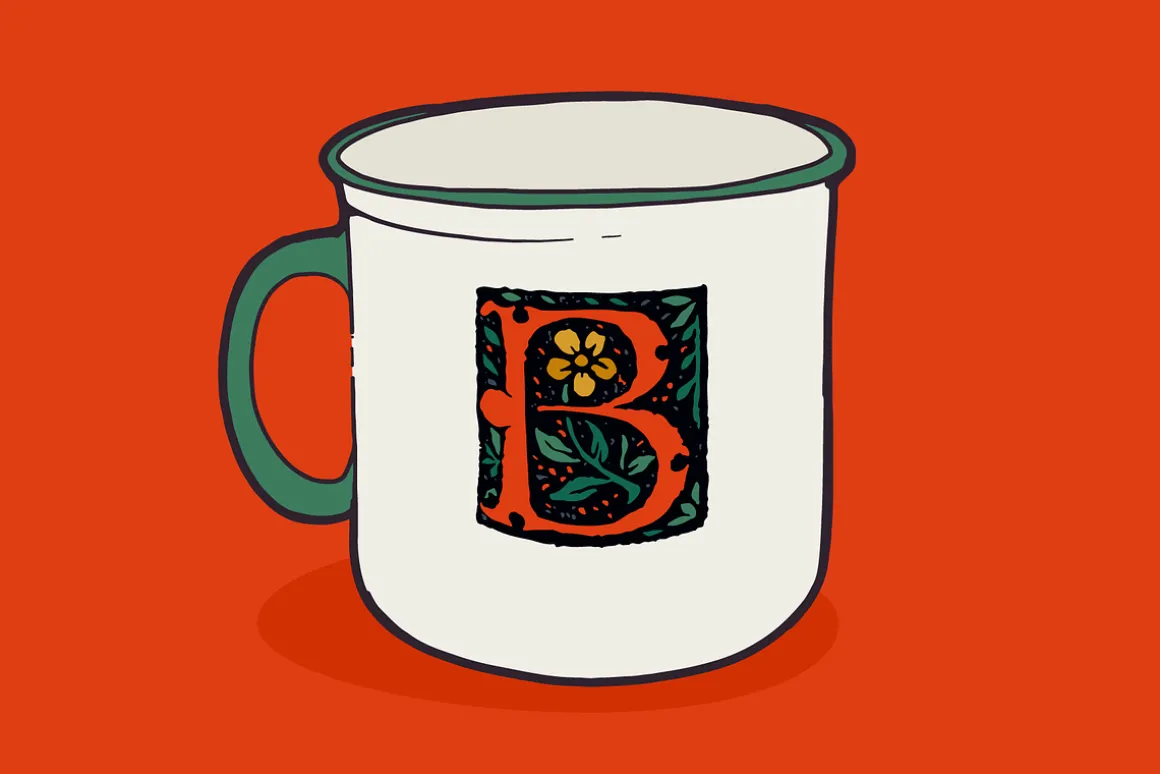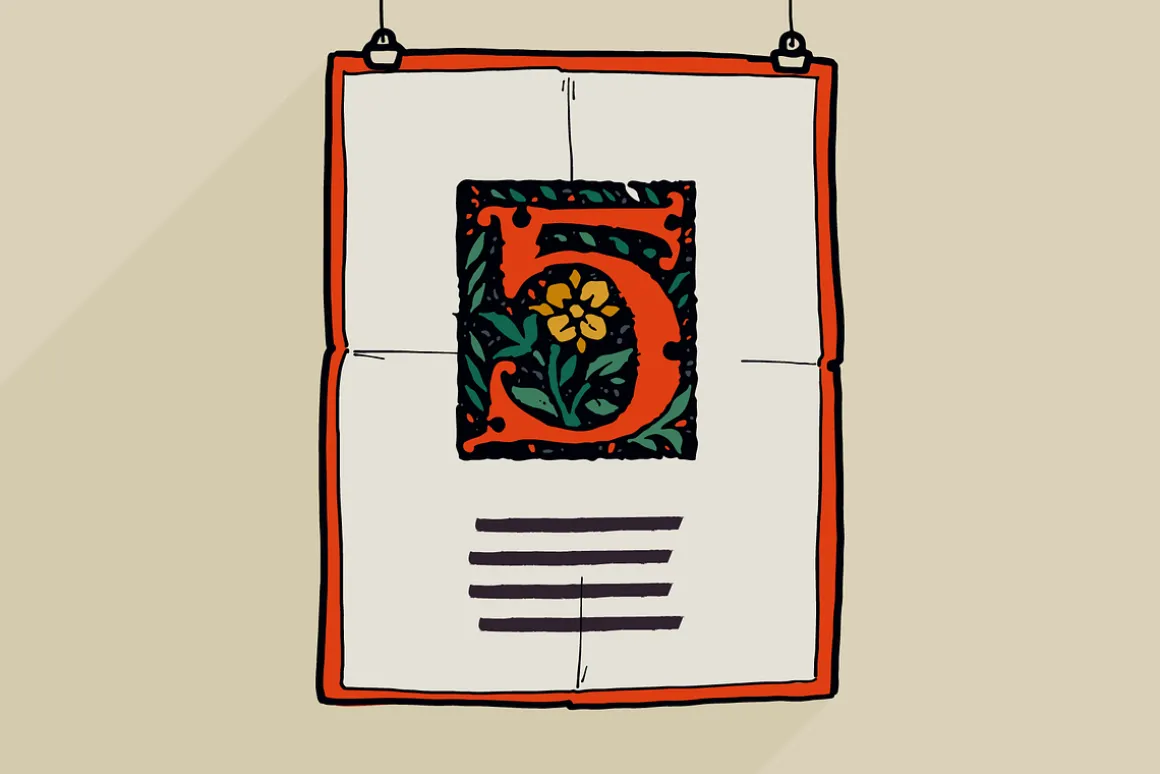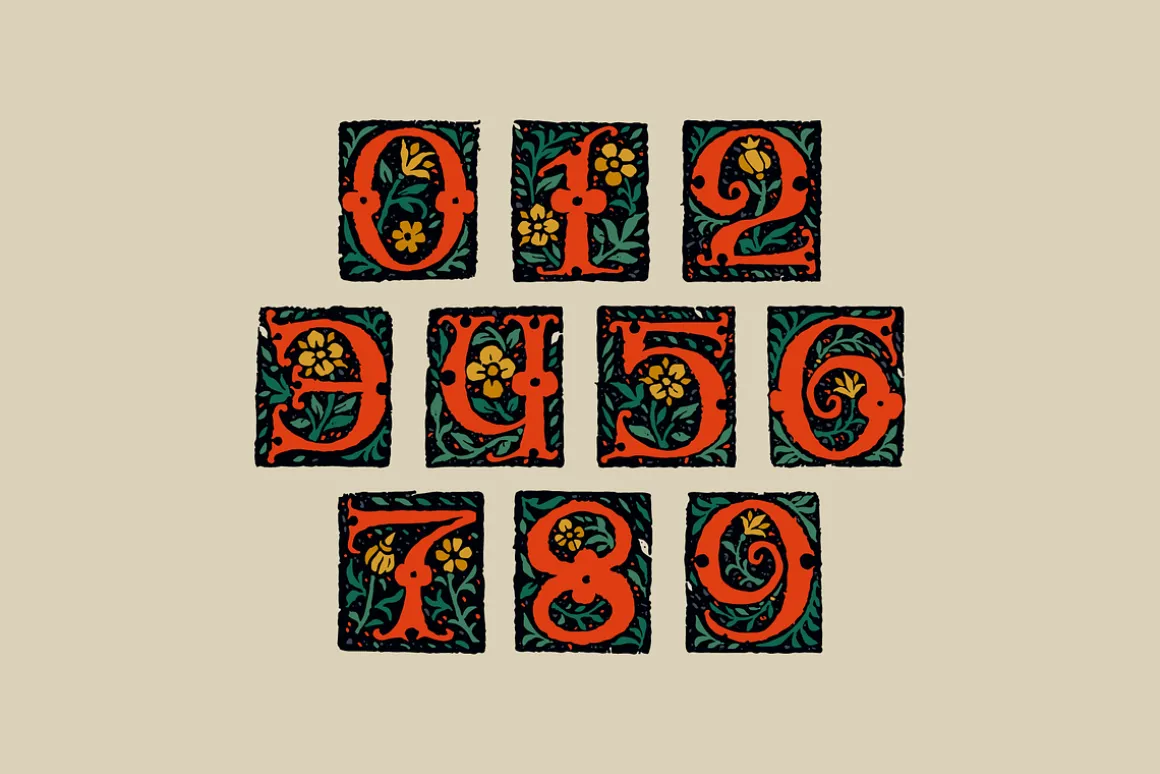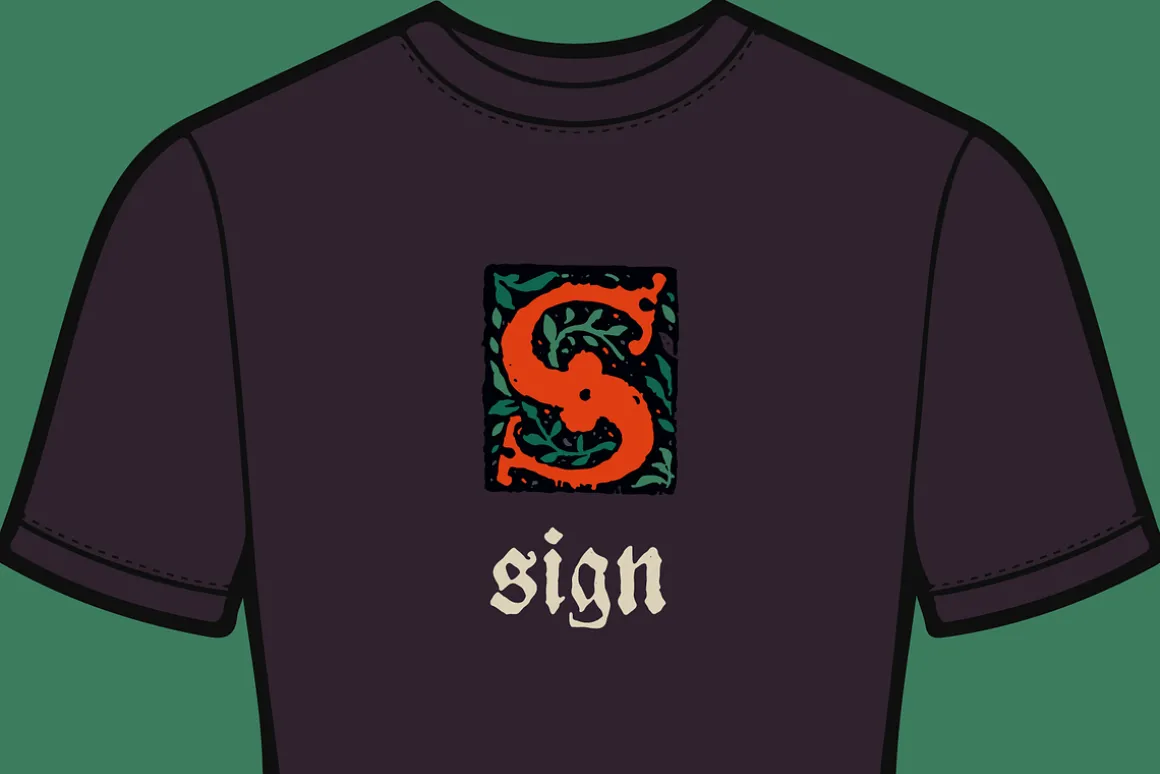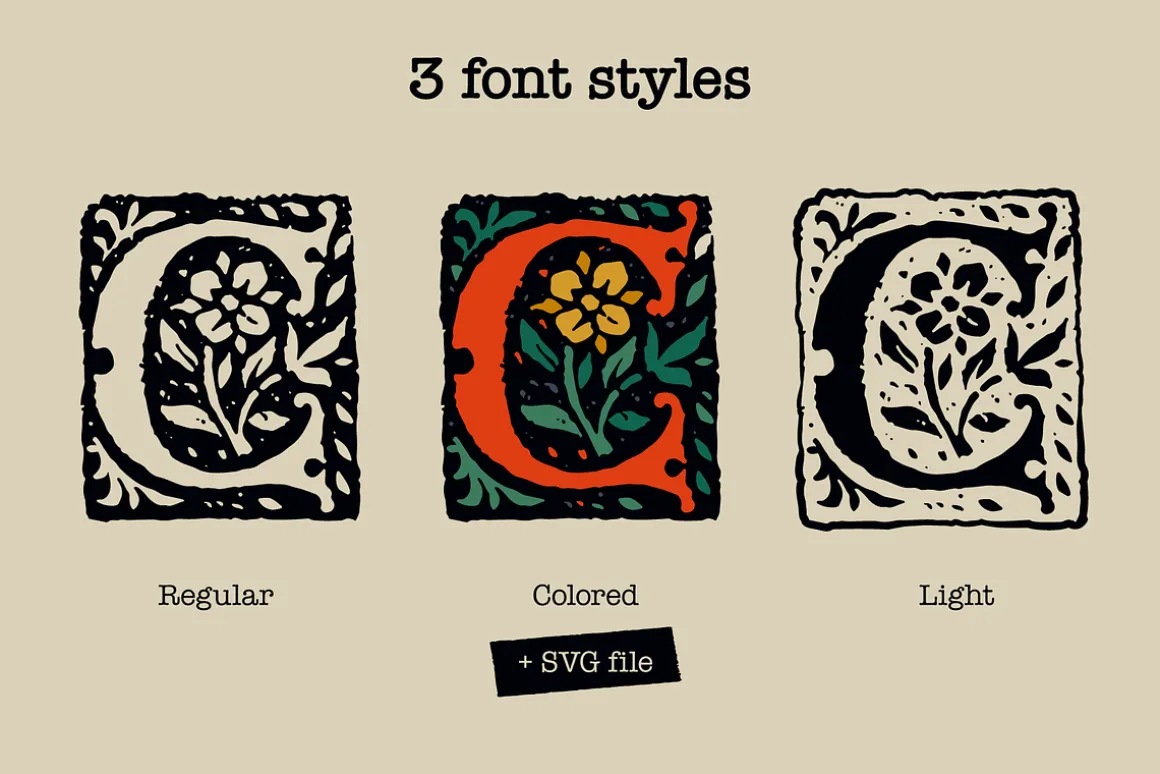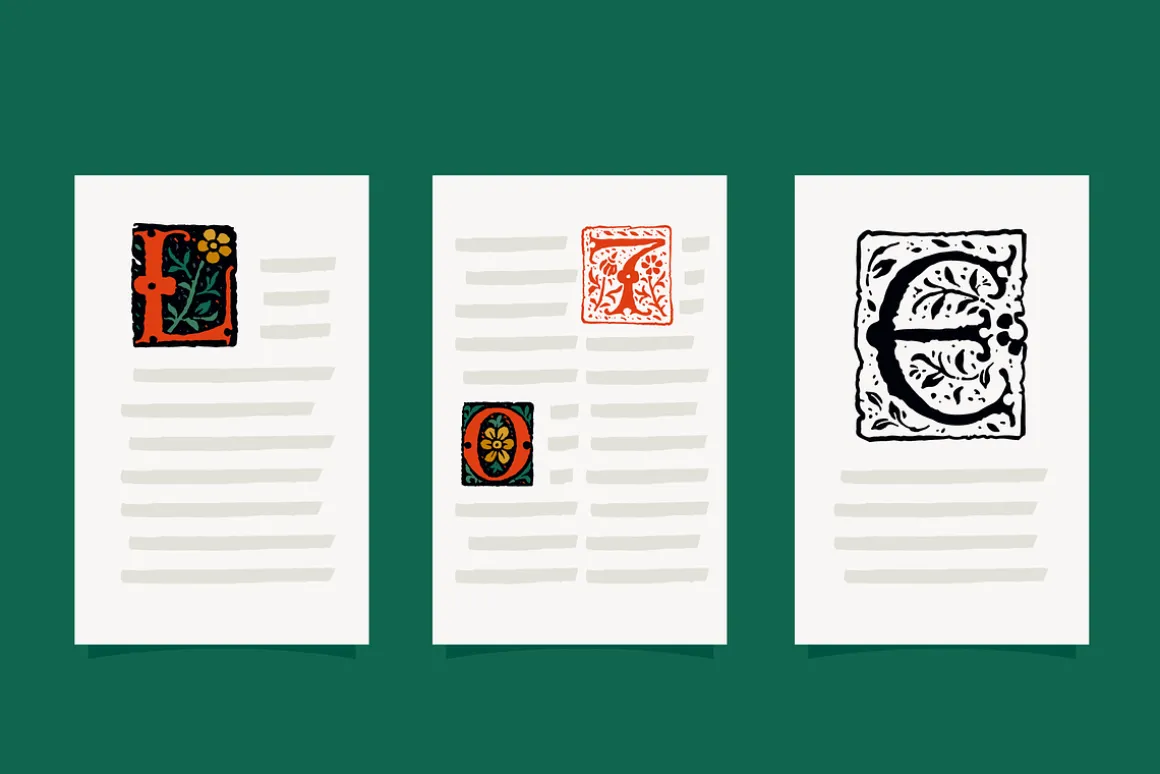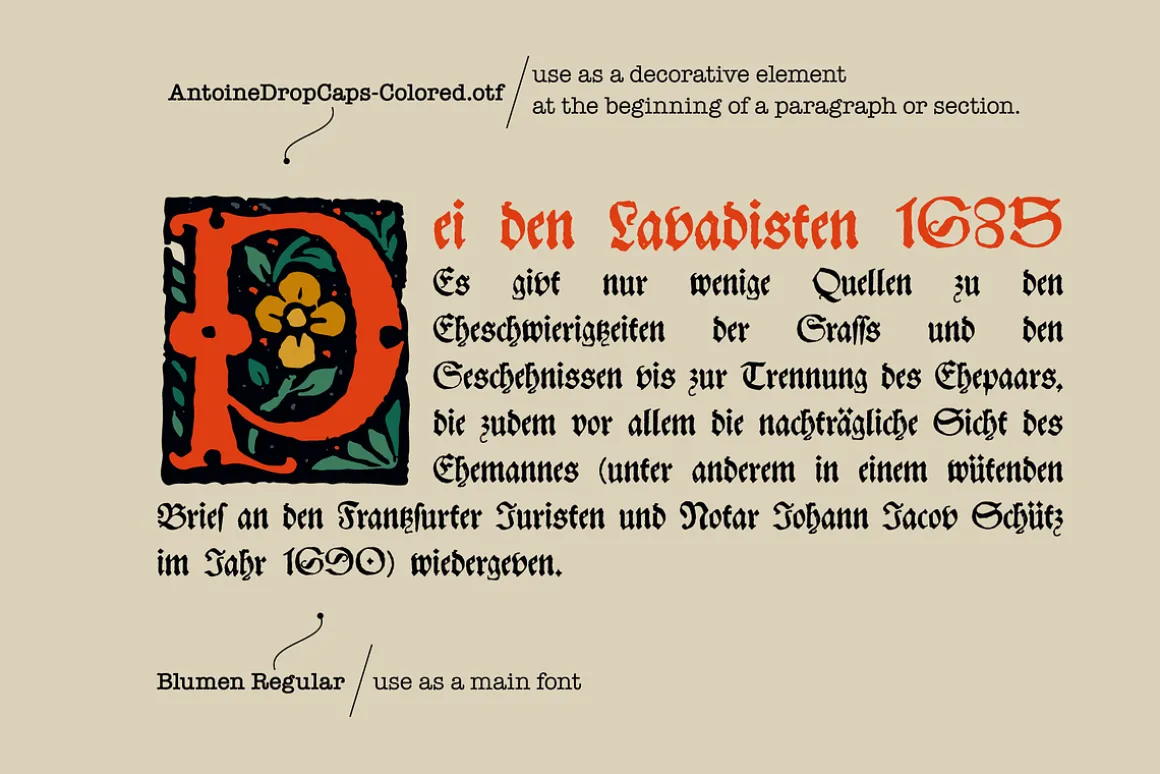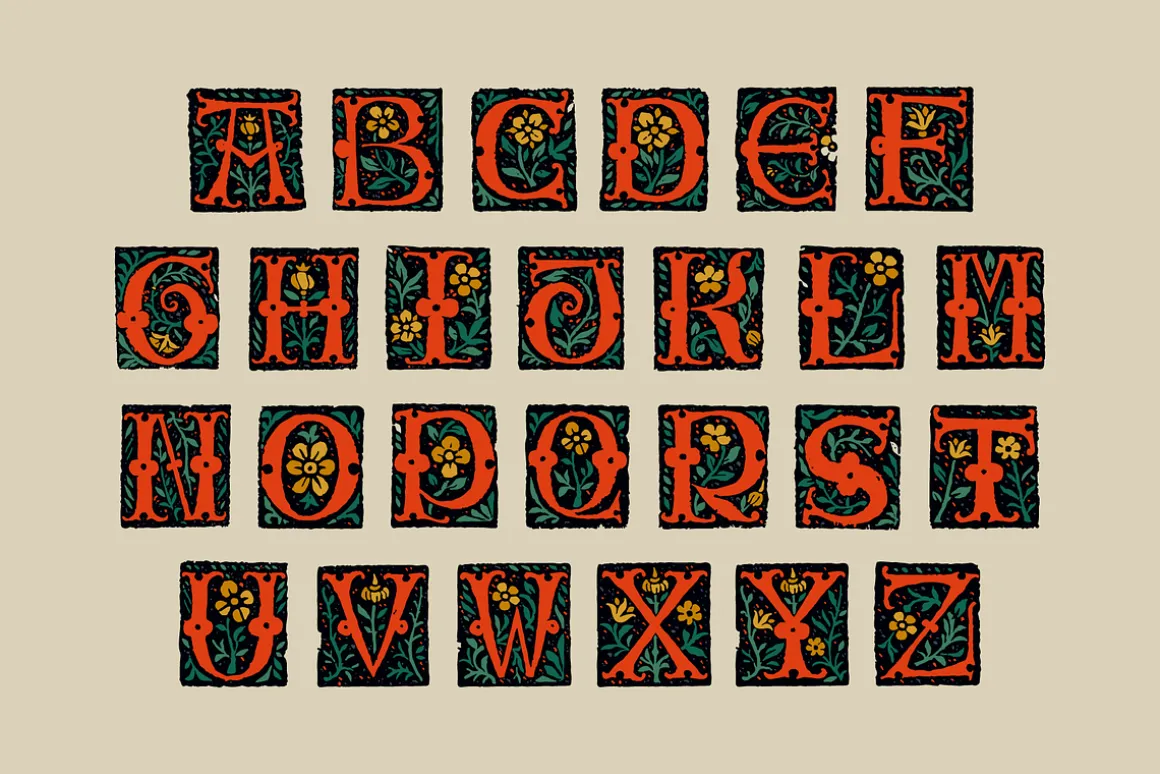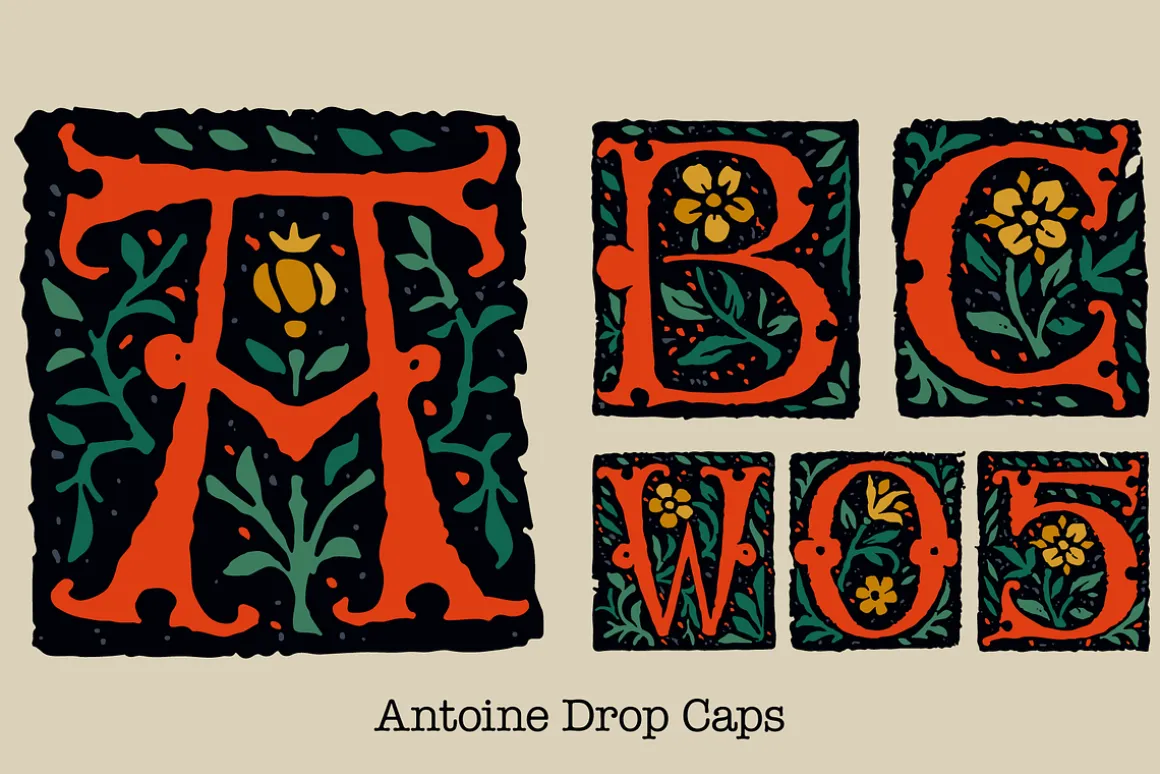
These initials set I collected from “Tristan of the Round Table”, published approximately in 1513, by Antoine Verard.
Antoine drop caps font family has Regular, Light and Colored styles. It’s all you need to precisely imitate medieval style text. Use this font as a decorative element at the beginning of a paragraph or section, other part of the paragraph should be in regular black letter font.